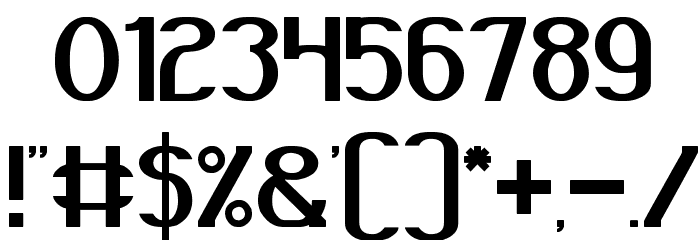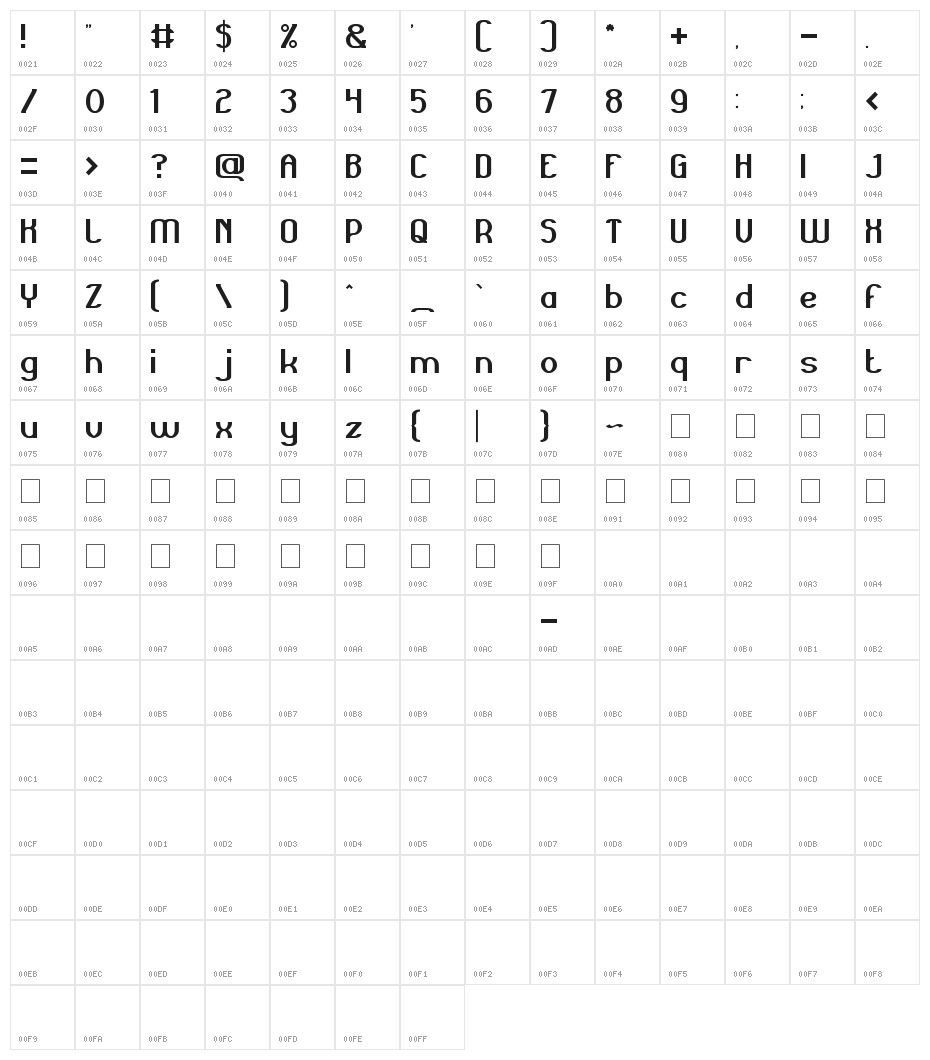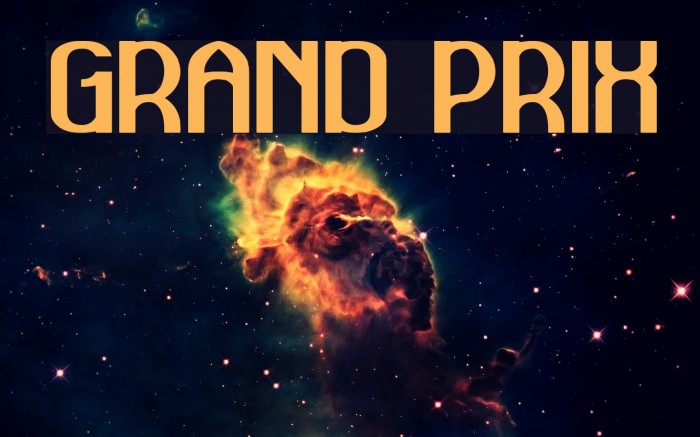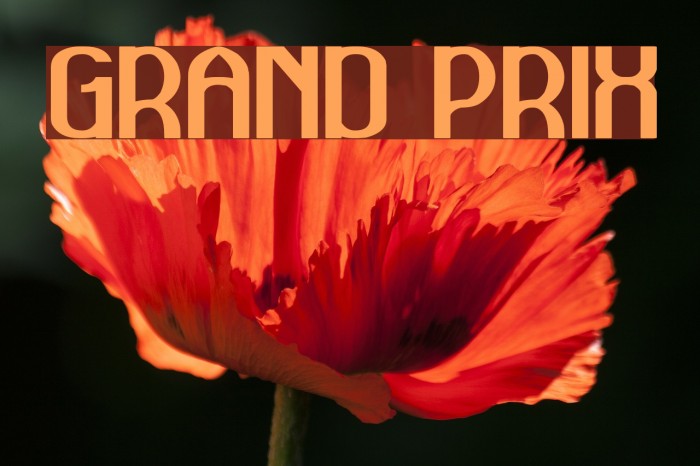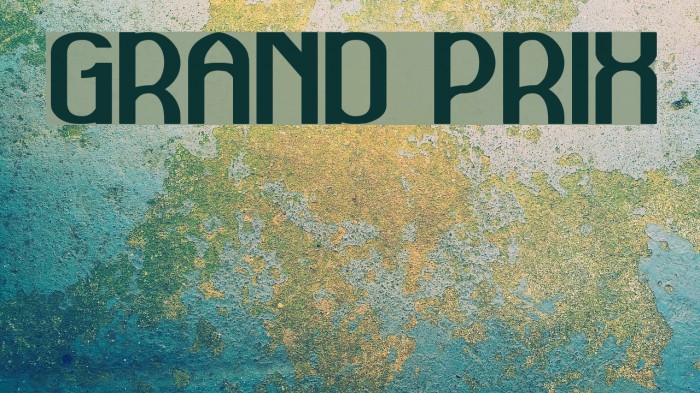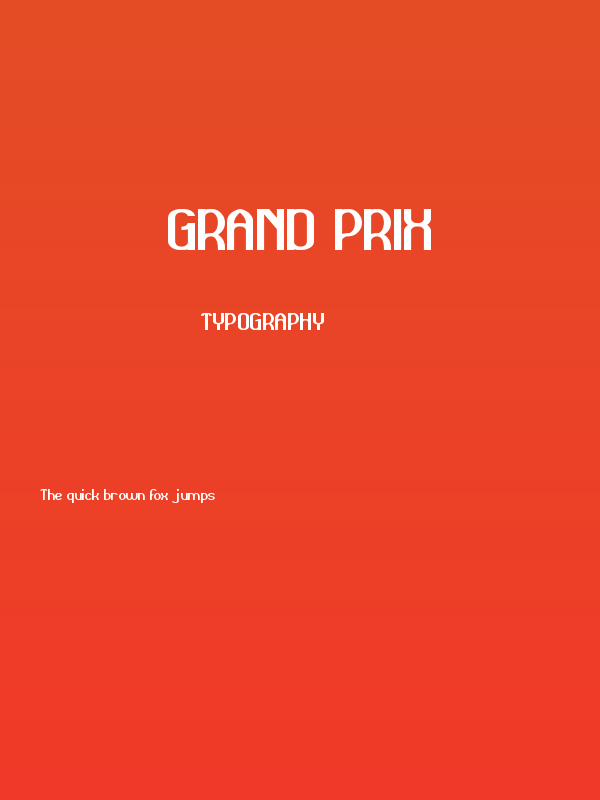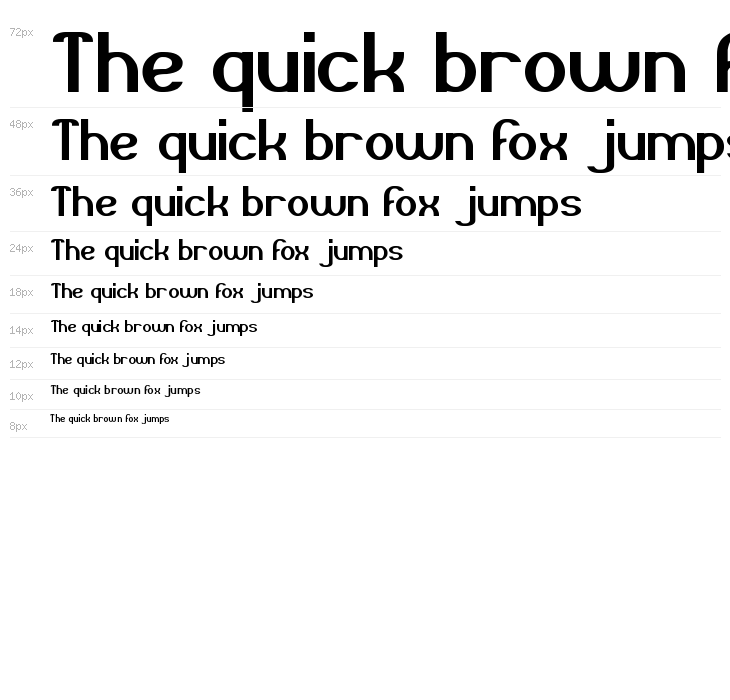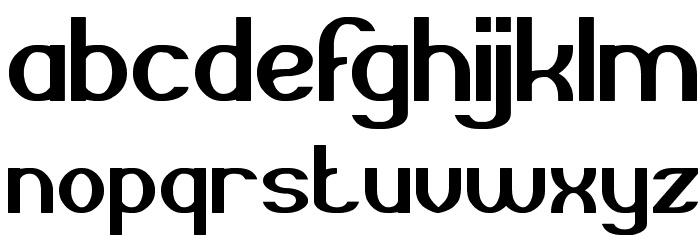
GRAND PRIX Font
GRAND PRIX Description
This font features a bold and modern design with a geometric structure that emphasizes clean lines and rounded edges. The uppercase letters are uniform in height, with a slight curve that adds a touch of elegance. The lowercase letters maintain a consistent style, with smooth curves and a balanced appearance. Numbers are clear and legible, making them suitable for a variety of uses. Special characters are well-integrated, maintaining the overall aesthetic. The font's design is both functional and stylish, making it versatile for various applications.